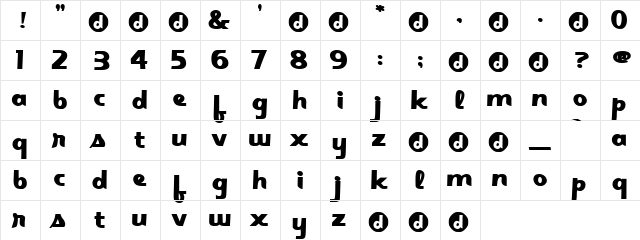
Silverjet Regular
Design Context for Silverjet Typeface
Silverjet offers clean, dependable letterforms without strong stylistic allegiance, making it a practical choice for designers who need flexibility.
Pro Tip: Pair Silverjet with a font of contrasting weight or personality to build a more expressive typographic hierarchy.